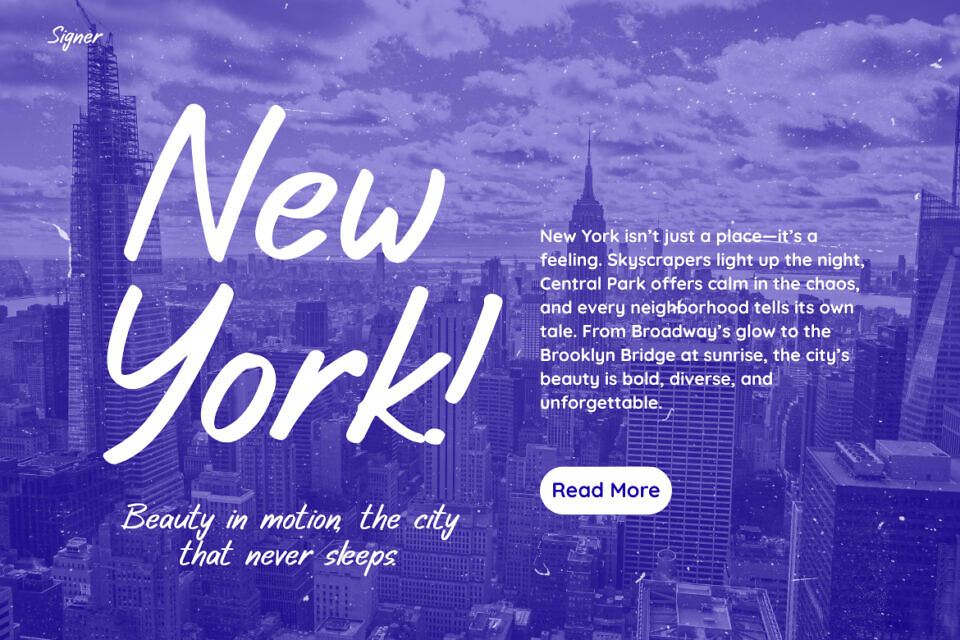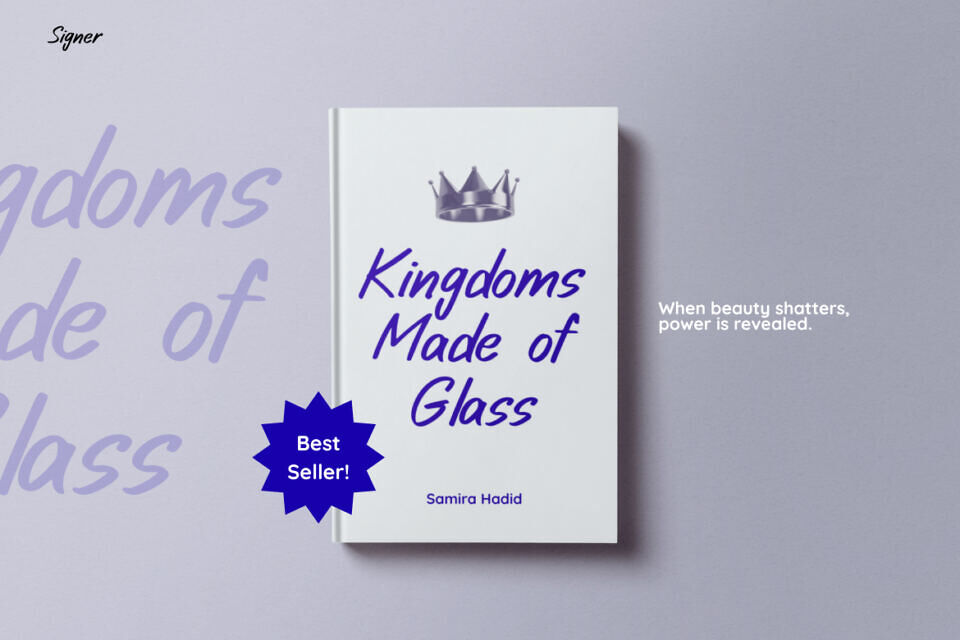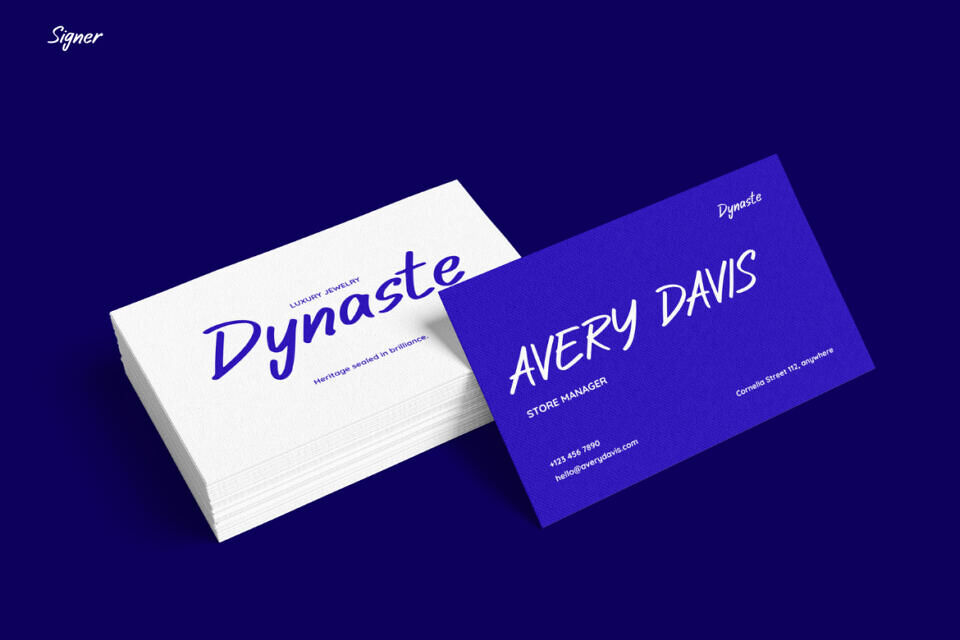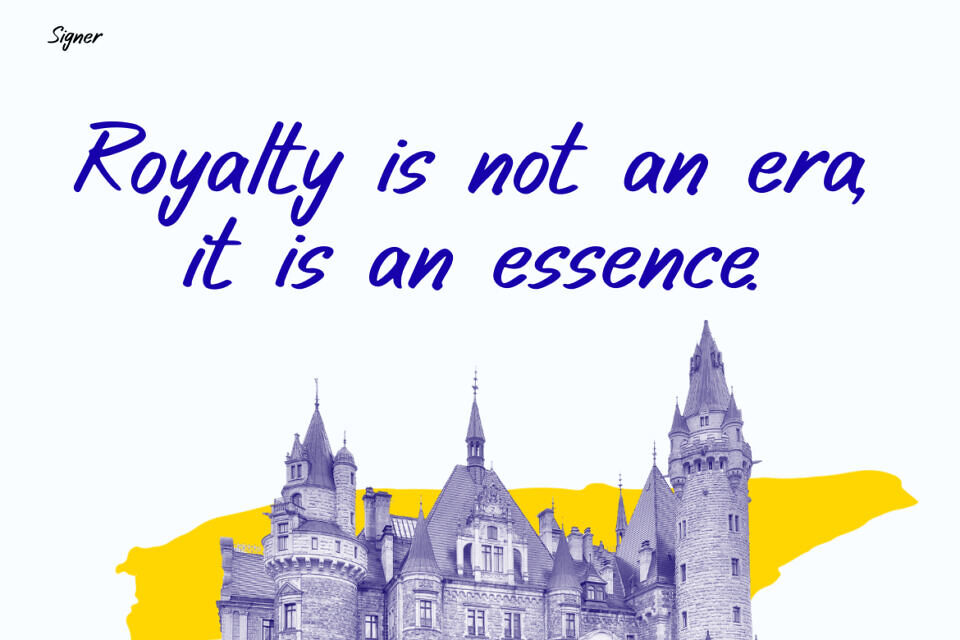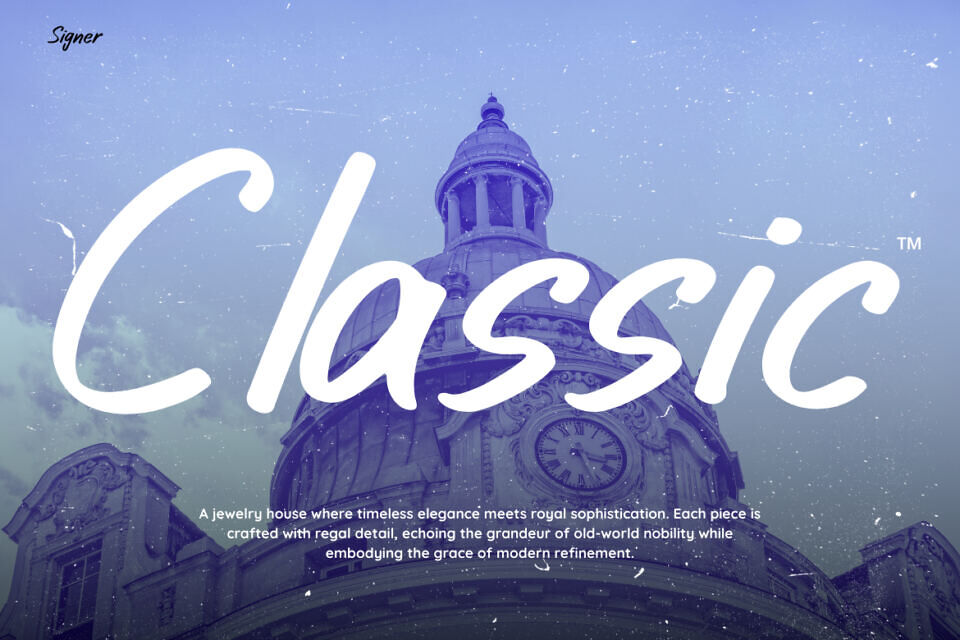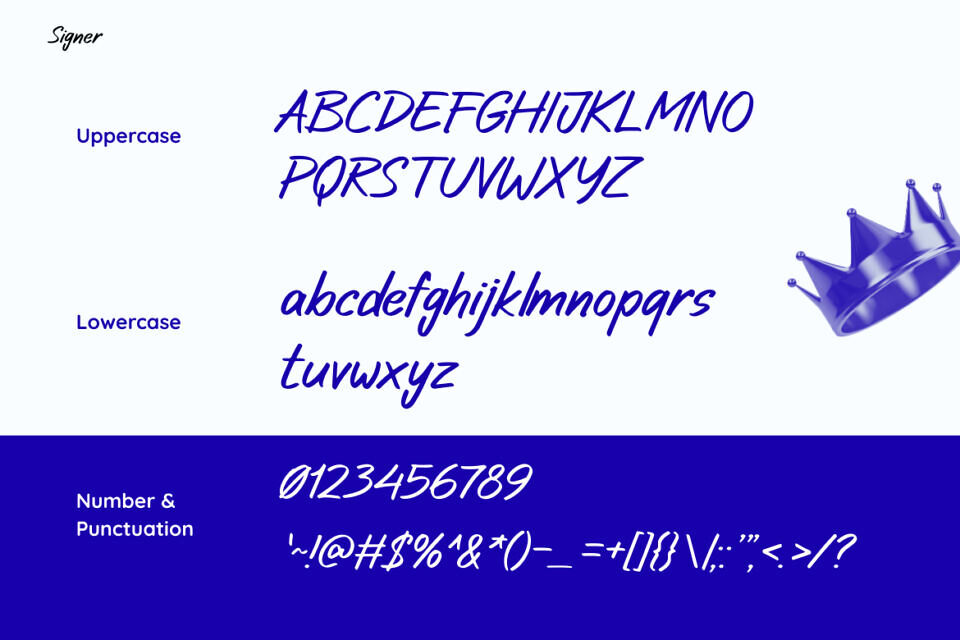
Signer Font is a modern script typeface that combines the elegance of handwriting with professional versatility. Its smooth strokes and natural flow create a personal yet refined look, making it ideal for logos, invitations, posters, and digital content.
Balancing casual charm with design clarity, Signer ensures readability while delivering authenticity and style. Each curve feels warm and engaging, while consistent letterforms guarantee polished results.